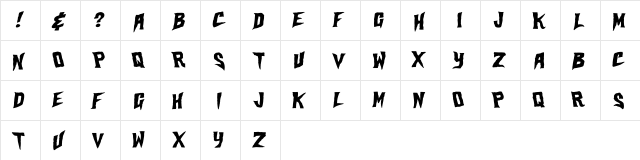
Skateparx Filled - Demo Regular
Design Context for Skateparx Filled - Demo Typeface
Skateparx Filled - Demo is a composed and adaptable typeface that performs quietly and consistently across a wide range of design contexts.